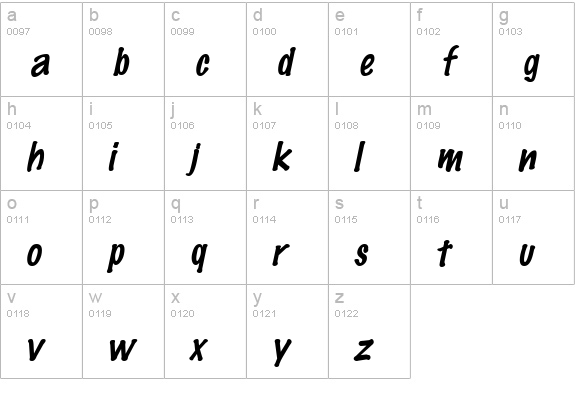
Marker Italic Font Details
Marker Italic is a distinctive, italic variant in the Marker typeface family \xE2\x80\x94 well suited to design and typography projects.
Marker Italic is a captivating and expressive font that adds a touch of elegance and sophistication to any project. Its slanted and fluid letterforms exude creativity and personality, making it a perfect choice for designs that demand attention and a unique flair. This font effortlessly combines the charm of hand-drawn markers with the precision of typography, resulting in a one-of-a-kind typeface that stands out from the crowd. Its organic strokes and slightly irregular shapes give it a natural and authentic feel, making it suitable for a wide range of design projects. Whether you're creating eye-catching headlines, stylish logos, or artistic posters, Marker Italic is sure to make a lasting impression. Its bold and energetic nature injects a sense of dynamism and excitement into your designs, instantly grabbing the viewer's attention. But what makes Marker Italic truly exceptional is that it is not only visually stunning, but it is also free to download at FontsMarket.com. This means that you can unleash your creativity without any constraints, knowing that this remarkable font is readily available for you to use in your personal and commercial projects. So, why settle for ordinary when you can elevate your designs with the captivating beauty of Marker Italic? Download this free font today and transform your creations into works of art that leave a lasting impact on your audience.